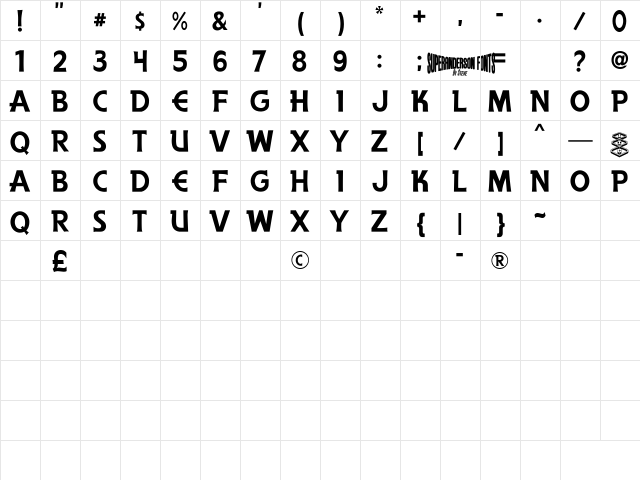
Anderson The Secret Service Regular
| Designer | Steve Ferrera |
Design Context for Anderson The Secret Service Typeface
Anderson The Secret Service offers clean, dependable letterforms without strong stylistic allegiance, making it a practical choice for designers who need flexibility.